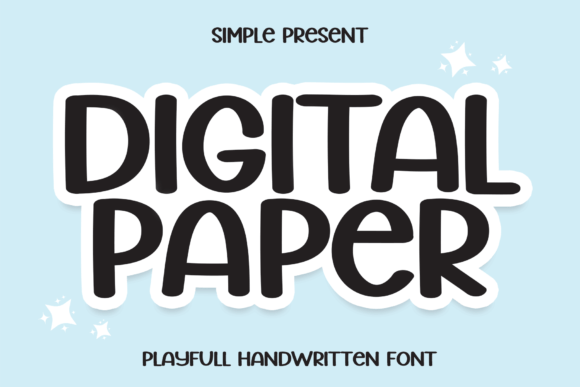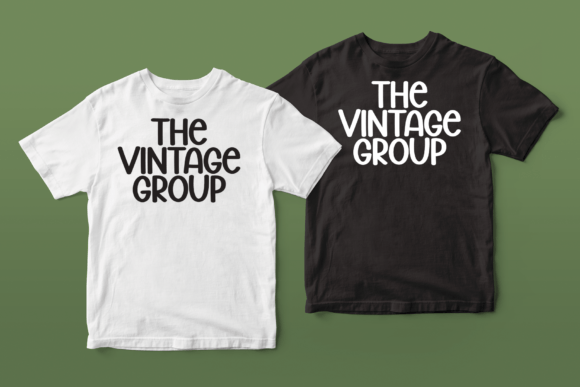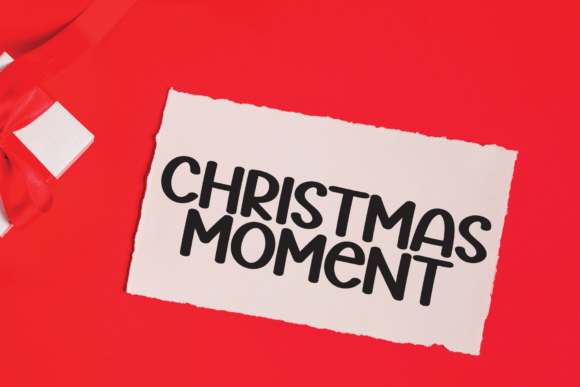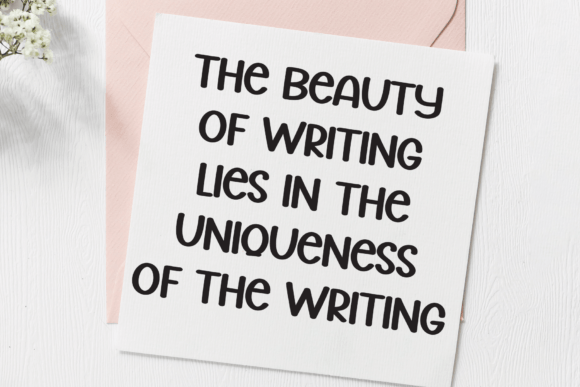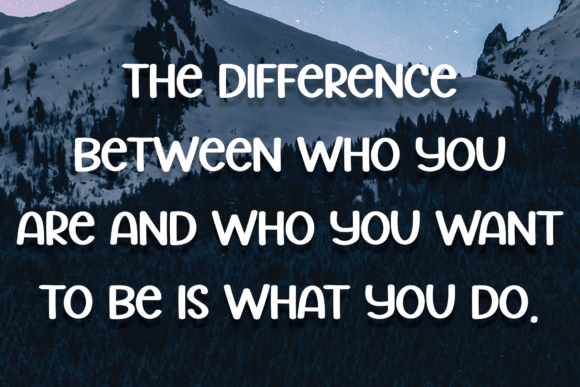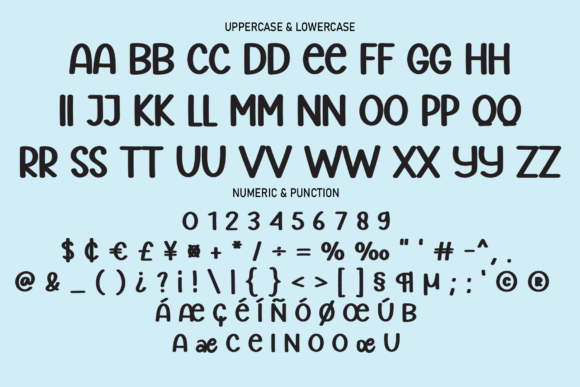
About Digital Paper Font
Digital Paper is a clean, relaxed, and friendly handwritten font designed to offer versatility and simplicity for a wide range of design projects. With its neat and straightforward style, this font is poised to become your favorite go-to choice, suitable for various occasions. Embrace the clean and friendly aesthetic of Digital Paper to elevate your designs, creating a sense of ease and approachability.
The clean and relaxed style of Digital Paper brings a sense of simplicity and clarity to your text. Its straightforward design makes it well-suited for projects that require an easygoing and uncomplicated appearance, allowing the content to shine.
Suitable for a wide variety of designs, Digital Paper can effortlessly adapt to different contexts. Whether applied to digital or print media, the font’s versatility allows it to become a reliable and flexible option for your creative endeavors.
In branding, Digital Paper can contribute to a friendly and approachable visual identity. The font’s clean and relaxed demeanor adds a touch of authenticity, making it suitable for brands that want to establish a genuine connection with their audience.
For various occasions, the straightforward style of Digital Paper makes it a reliable and adaptable font. Whether used for invitations, social media posts, or other design projects, the font’s simplicity ensures readability while conveying a relaxed and friendly mood.
The potential for Digital Paper to become a favorite go-to font lies in its ease of use and its ability to complement a wide range of design styles. Its clean and friendly handwritten aesthetic makes it a versatile tool for designers seeking a font that seamlessly integrates into different projects.
In summary, Digital Paper is more than just a font; it’s a design tool crafted for simplicity and versatility. Whether applied to branding, invitations, or various design occasions, this font’s clean and friendly style makes it a reliable and adaptable choice, becoming a go-to font for creating designs with ease and approachability.